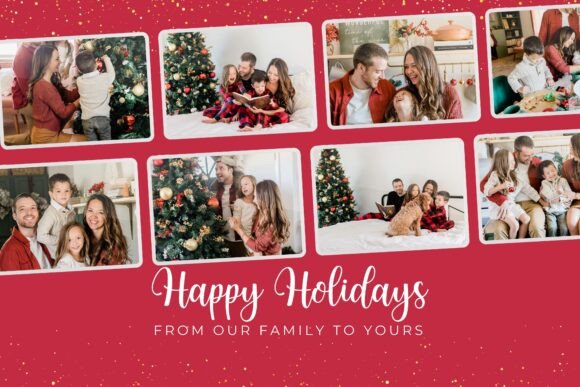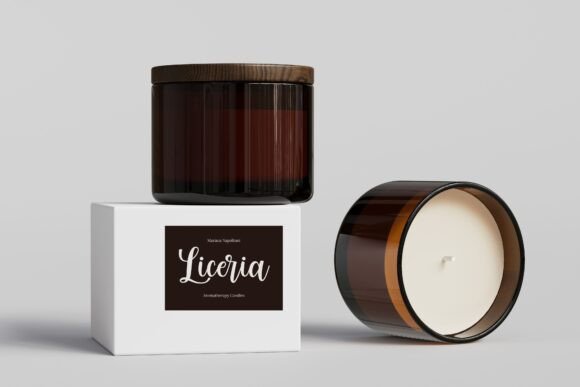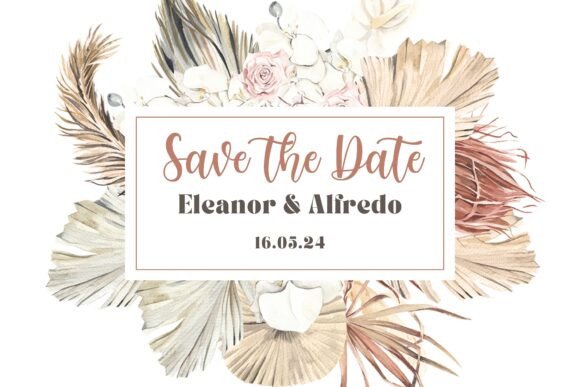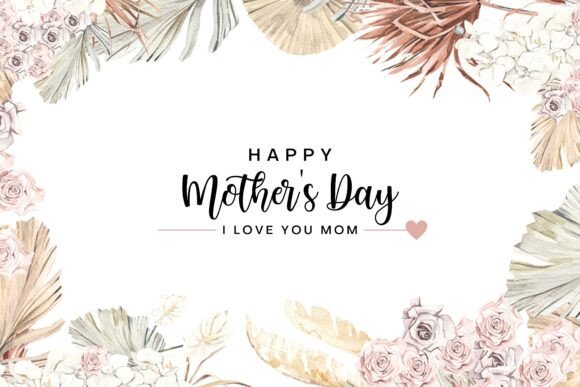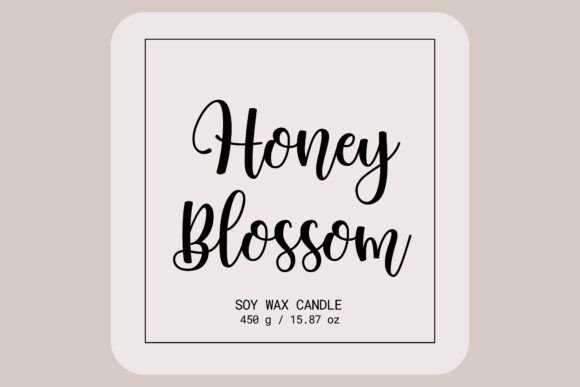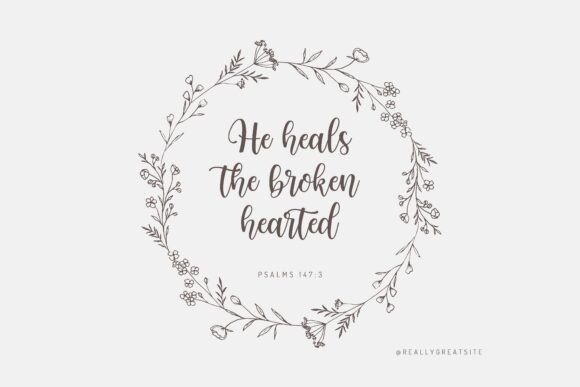
When Creativity Strikes
Have you ever been inspired by a free-spirited vibe and wanted to capture it in your designs? We’ve all been there – a beautiful sunset, a quirky coffee shop, or a vintage market stall sparks an idea and suddenly you’re itching to create something new.
That’s exactly what inspired us to craft the Kismet Font, a boho chic typeface designed to bring a touch of whimsy and creativity to your projects. Whether you’re working on a lifestyle blog, planning a bohemian-themed event, or building a brand that embodies the earthy spirit, this font is the perfect companion. Its artistic style adds a unique twist to your designs, making them stand out from the crowd.
Kismet Font Key Features
- Unique Characteristics: Kismet Font features a unique, hand-drawn design with subtle flair and elegance, making it perfect for use in high-end design projects, such as luxury branding and premium publishing.
Kismet Font Review
Overall, I was excited to dive into the Kismet Font, and I have to say it has some great qualities that make it a solid choice for designers. ✨ One of the standout features is its unique and elegant aesthetic, which adds a touch of sophistication to any design project. The font’s flowing curves and intricate details make it perfect for creative projects that require a sense of luxury and refinement.
Another aspect I appreciate about Kismet is its versatility. ✨ It comes in a range of weights, from light to bold, allowing designers to easily switch between styles and find the perfect fit for their project. The font also includes a range of languages, making it a great option for global projects.
However, I did encounter some limitations while working with Kismet. ⚠️ One of the main issues is its readability at smaller font sizes. While the font looks stunning at larger sizes, it can become difficult to read at smaller sizes, which may be a concern for designers working on projects with tight space constraints.
Additionally, I found the font to be a bit inconsistent in terms of line spacing. ⚠️ This can make it difficult to achieve a clean and professional look, especially when working with multiple lines of text.
Conclusion
- Unique and elegant aesthetic
- Versatile with multiple weights and languages
- Perfect for creative projects requiring luxury and refinement
Overall, I would recommend Kismet Font to designers who are looking for a high-end, sophisticated font for their projects. While it has some limitations, its strengths make it a great addition to any design arsenal.